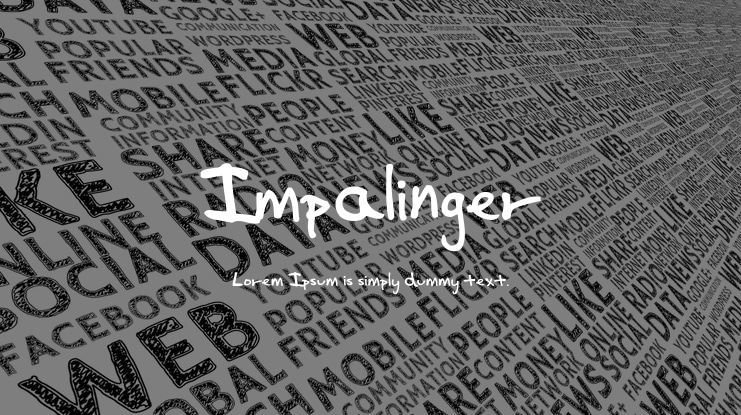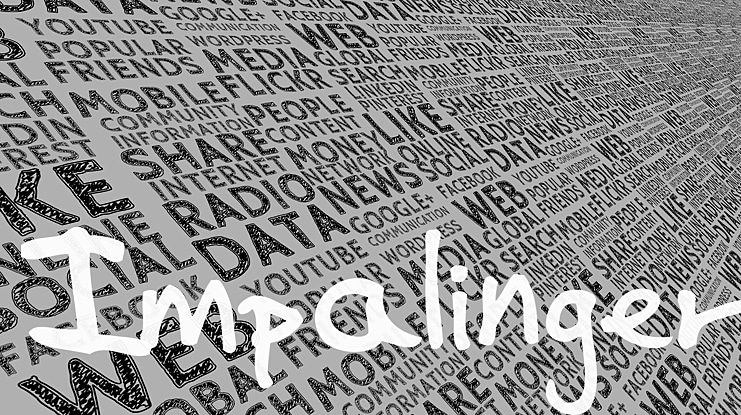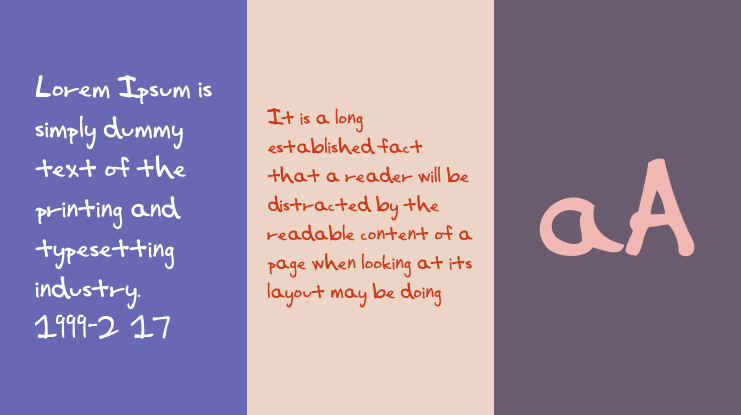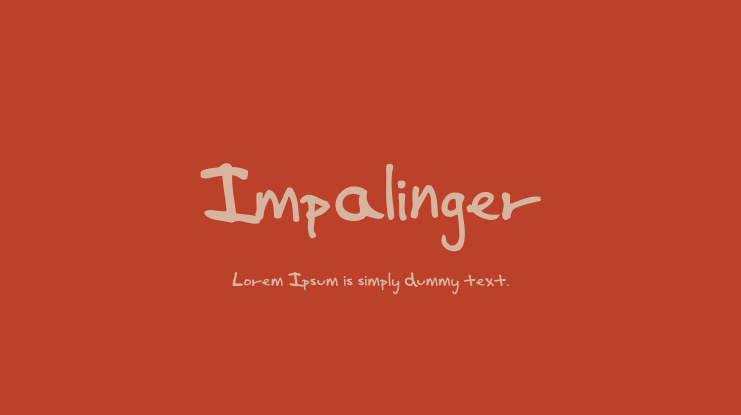
Impalinger Font
You want a hand written font that looks legit, has character, and looks like it came right off of your 3rd grade bathroom wall? ...And it's free? This font is so you. For even more fun, use it with some Illustrator jitter effects.